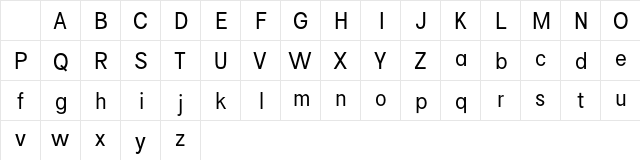
Campeno Demo is a composed and adaptable typeface that performs quietly and consistently across a wide range of design contexts.
Pro Tip: Use Campeno Demo in both headline and body roles to test its range before committing to a single application.